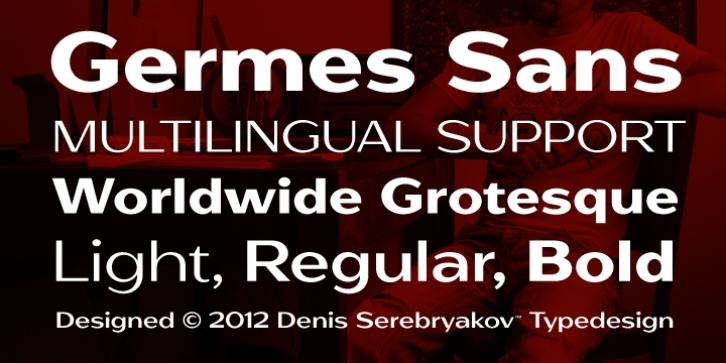
Germes Sans is a sequel to the Germes font. Germes Sans is the font family consisting of three weights. Specially designed for logotype, packaging & editorial design projects.